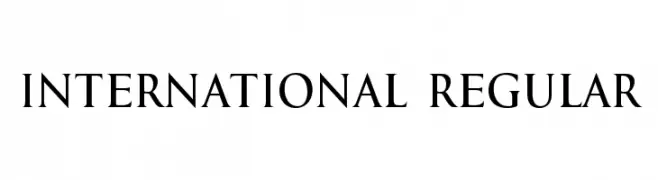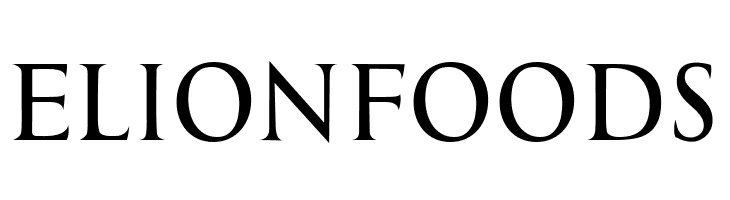
A refined serif typeface with balanced proportions and medium contrast, ideal for elegant designs.
A classic serif font with elegant curves and medium contrast, ideal for formal and traditional designs.